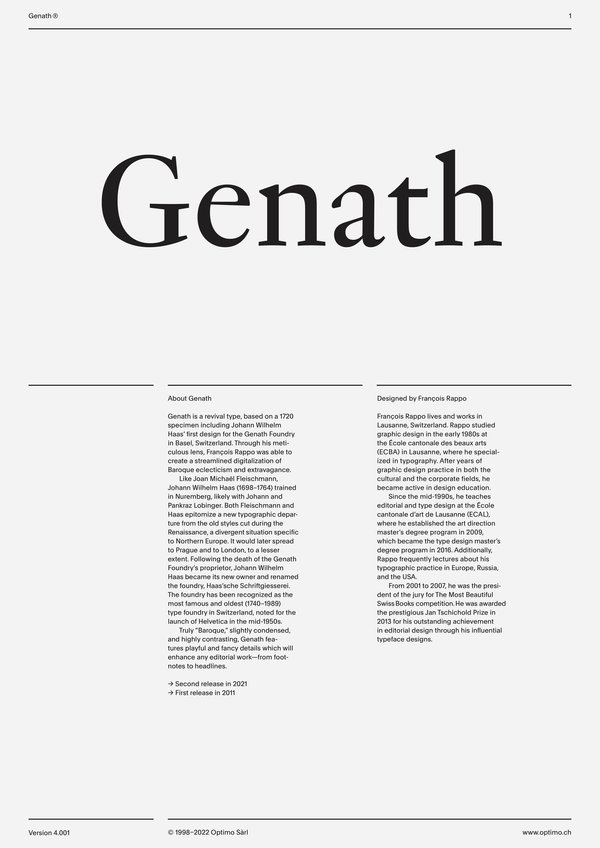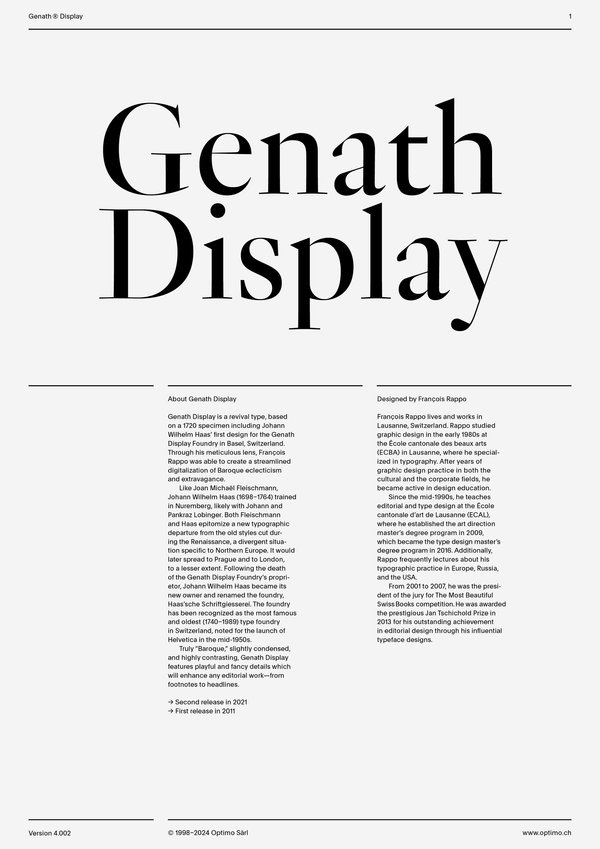
Genath
Genath Display
Case Sensitive Forms
All Caps [cpsp]
Case Sensitive Forms [case]
This function formats the text in uppercase and adjusts spacing between all capital letters. It also applies the ‘Case Sensitive Forms’ feature which replaces certain characters with alternates that are better suited for all capital text, especially related to punctuation.
Contextual Alternates
Contextual Alternates [calt]
This feature adapts the position of a glyph after its surrounding context. For instance, a dash placed between two uppercase letters or numbers will be replaced by an uppercase version of the dash, slightly higher. This feature is usually active by default in Adobe applications.
Small Proportional figures
Stylistic Set 2 [ss02]
This feature replaces glyph(s) with stylistic alternate(s).
Small Tabular figures
Stylistic Set 3 [ss03]
This feature replaces glyph(s) with stylistic alternate(s).
Historical long s
Stylistic Set 7 [ss07]
This feature replaces glyph(s) with stylistic alternate(s).
Tabular Lining Figures
Tabular Lining Figures [tnum–lnum]
Based on the proportions of the capitals, lining figures have an invariable height. With the combination of the tabular spacing format, the width of each numeral is uniformized. This feature is useful when numerals need to all lined up. It facilitates the reading of numbers set within columns or tables. As some applications don’t have access to this feature, proportional figures are set as the default choice.
Proportional Oldstyle Figures
Proportional Oldstyle Figures [pnum–onum]
Based on the design of the lowercase, oldstyle figures have varying ascenders and descenders. Like most of the letters, each number has an appropriate width based on its shape. The combination of oldstyle figures with proportional setting generate numerals perfectly adapted for text.
Tabular Oldstyle Figures
Tabular Oldstyle Figures [tnum–onum]
Based on the design of the lowercase, oldstyle figures have varying ascenders and descenders. With the combination of the tabular spacing format, the width of each numeral is uniformized. This feature is useful when numerals need to all lined up. It facilitates the reading of numbers set within columns or tables.
Fractions
With this feature, any numbers separated by a slash will automatically turn into a fraction. To fit in fraction configuration, numerals have been designed smaller and their weights have been adjusted to suit the typeface.
Lowercase math symbols
Stylistic Set 6 [ss06]
This feature activates alternate lowercase positioning of mathematical symbols.
This feature replaces any letter following a numeral with its matching superior letters. French language uses the ordinal indicators such as ‘er’ for 1er premier, while Spanish, Portuguese and Italian require the feminine and masculine ordinals ‘a,’ ‘o’ for 1º, 1ª. Ordinals are designed to match the weight of the typeface.
Slashed Zero
Slashed Zero [zero]
Originally created to avoid the confusion between the ‘0’ and the ‘O’, this feature substitutes all zeros in a selected text by a slashed form of the zero.
Slashed Zero Oldstyle
Slashed Zero [zero]
Originally created to avoid the confusion between the ‘0’ and the ‘O’, this feature substitutes all zeros in a selected text by a slashed form of the zero.
Proportional Oldstyle Figures [onum]
Tabular figures are all of equal width. They are only needed when the figures must all line up from one line to the next, as in a table. Proportional figures have varying widths, just like most letters; each number has a width appropriate to its design. Lining figures are all the same height, usually similar to that of capital letters. They are needed for use with all-capital settings.
Multiply sign
Stylistic Set 20 [ss20]
This feature substitutes the letter “x” into the multiplication sign.
Numerators [numr]
This feature substitutes glyphs with their matching smaller alternates. The numerators are the same glyphs that are used to create fractions, their vertical position remains within the capital letters height. These glyphs are reduced in size and designed slightly heavier to keep them consistent with the rest of the font.
Truly “Baroque,” slightly condensed, and highly contrasting, Genath features playful and fancy details which will enhance any editorial work—from footnotes to headlines.